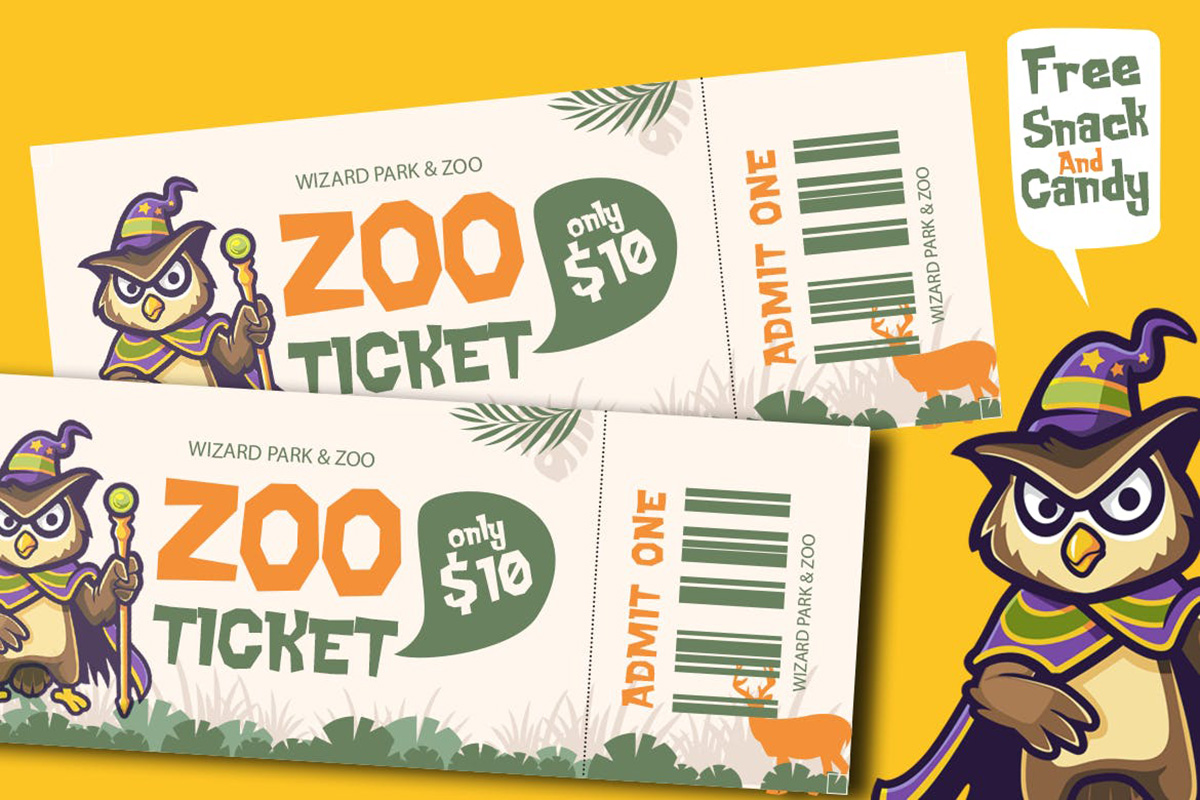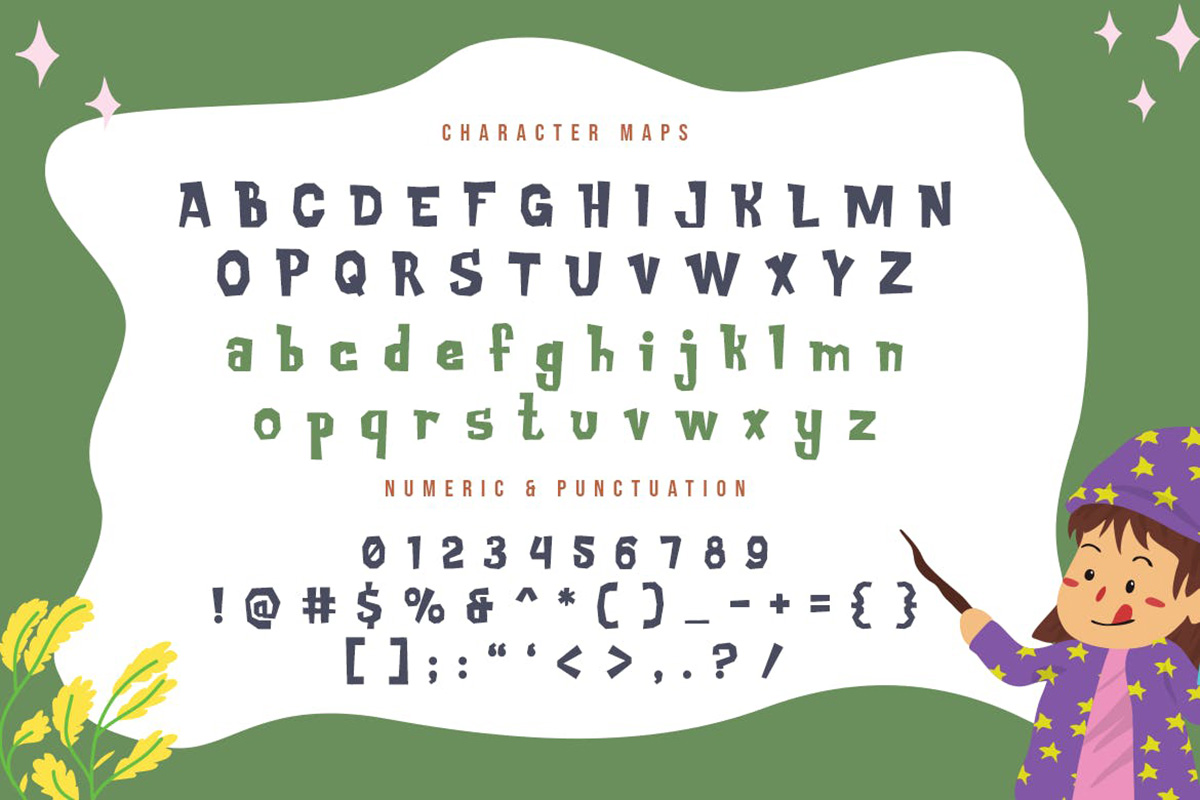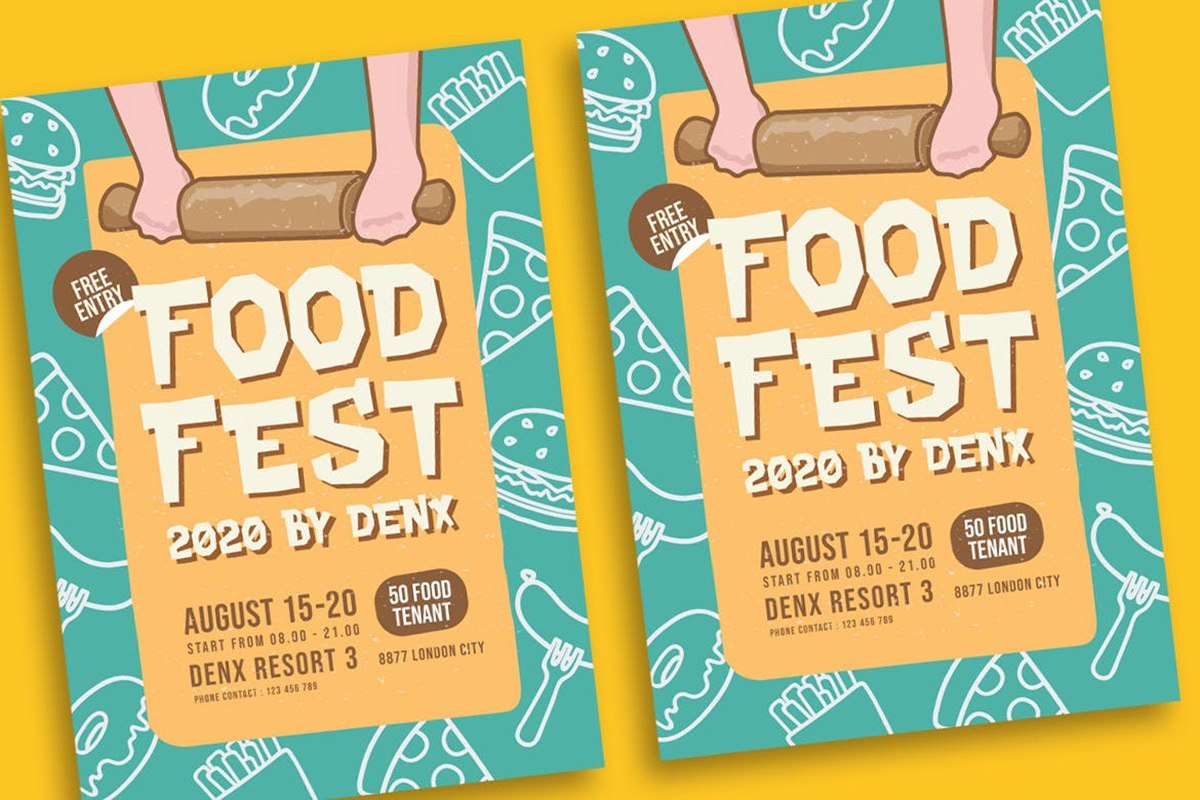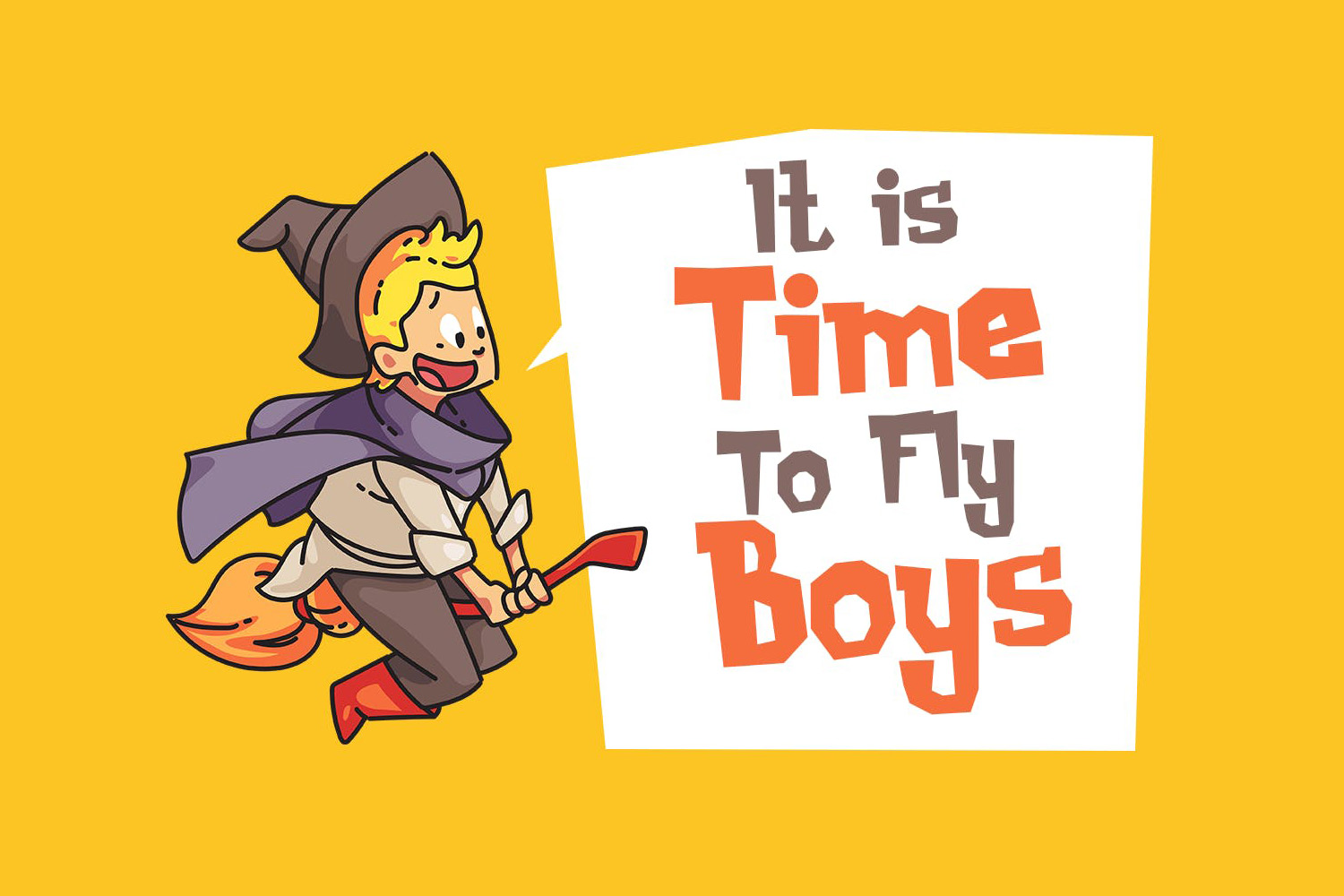
Log Wizard Free Font
Introducing Log Wizard – a whimsical slab serif font designed for kids. Step into a world brimming with enchanting spells and shimmering stars as your imagination conjures the Wizard. This font is an excellent fit for the magical themes book market, enchanting online games, charming stationery, school supplies branding, captivating posters, spellbinding movie titles, enchanting YouTube covers, captivating thumbnails, and captivating social media page headers, and much more. This free typeface was designed by a talented Pinisiart. If you like it don’t forget to check out the full version.